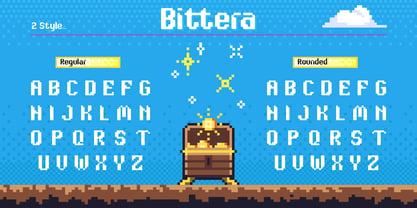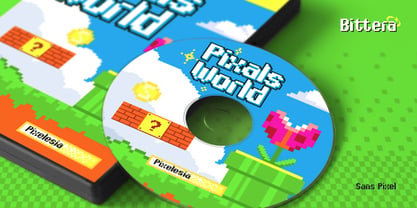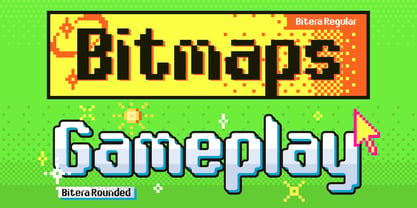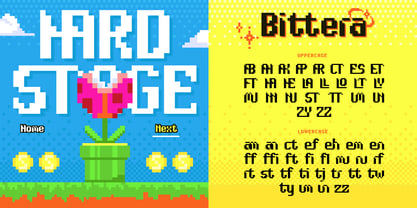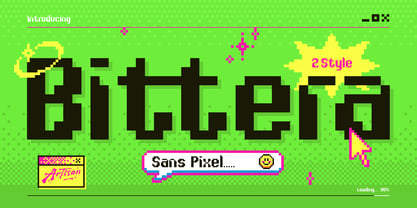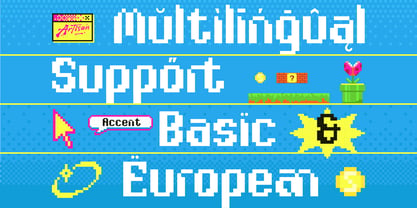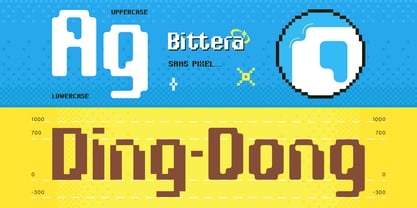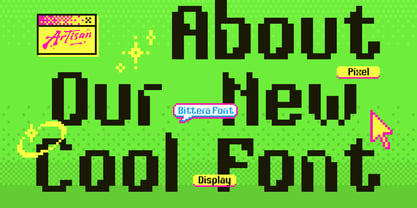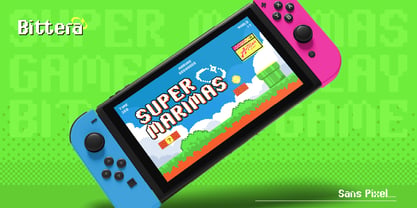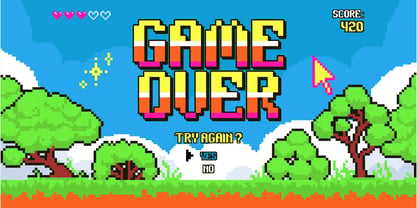
Bittera
by Artisan Themes
The Bittera Font Family was designed by Meidy Meichico and published by Artisan Themes. Bittera contains 2 styles and family package options. More about this family
Your new pixel perfect buddy is here! Introduce Bittera, this font is here to bring back that retro 8-bit magic but with a fresh twist. Bittera comes in 2 fun styles: Regular for that clean, classic pixel look, and Rounded for a softener, playful vibe. Perfect for game titles, pixel art, YouTube thumbnails or anything that needs that nostalgic arcade feel.
Press start and let Bittera power up your design!
Designers: Meidy Meichico
Foundry: Artisan Themes